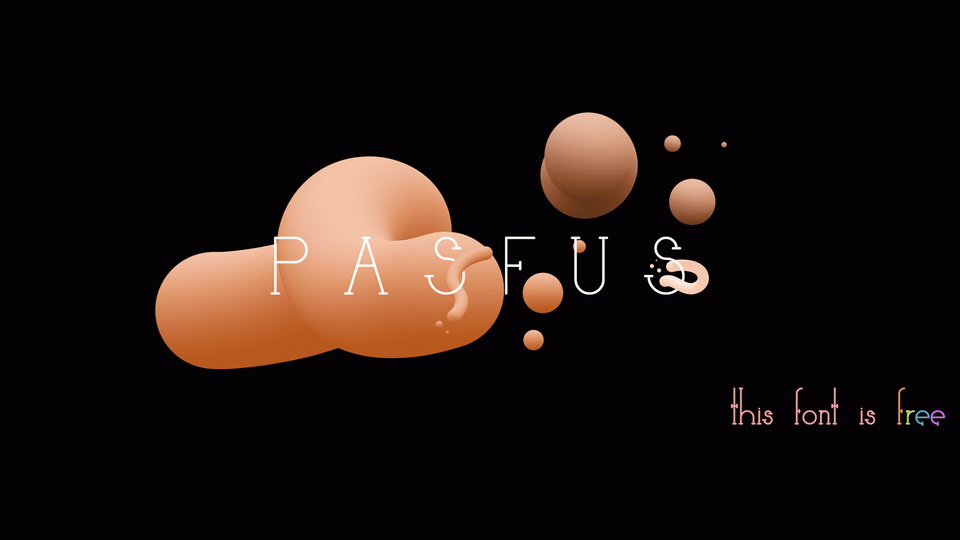
Pasfus Font
Pasfus is a lovely geometric serif typeface with a cute retro look. It’s perfect for minimalist branding, notes, quotes, cards and crafts.